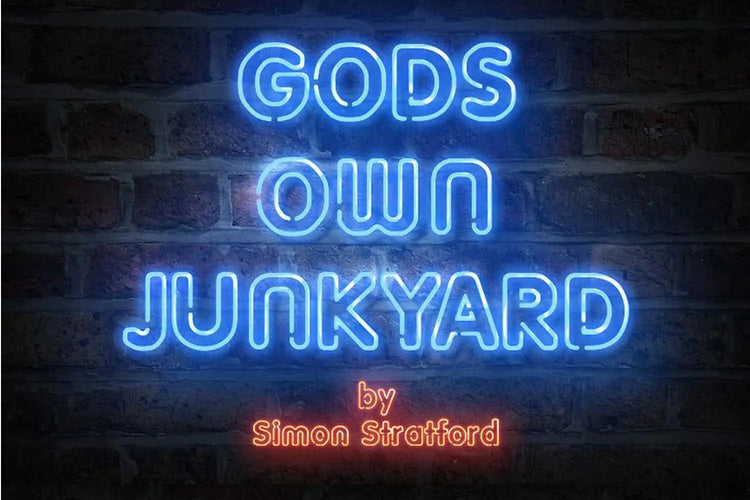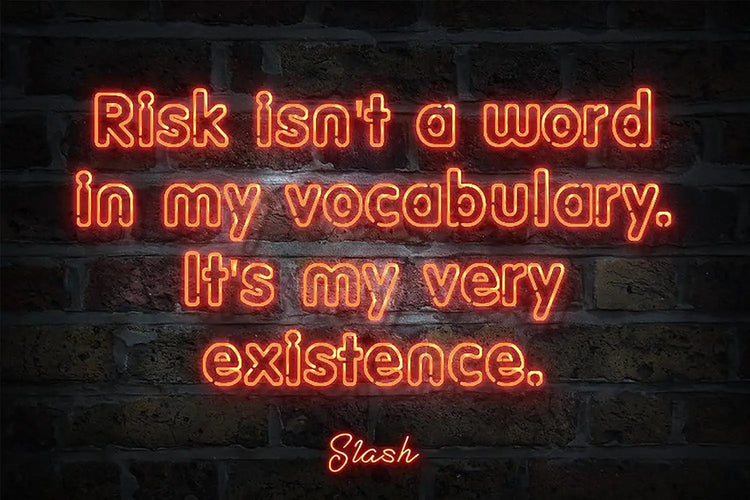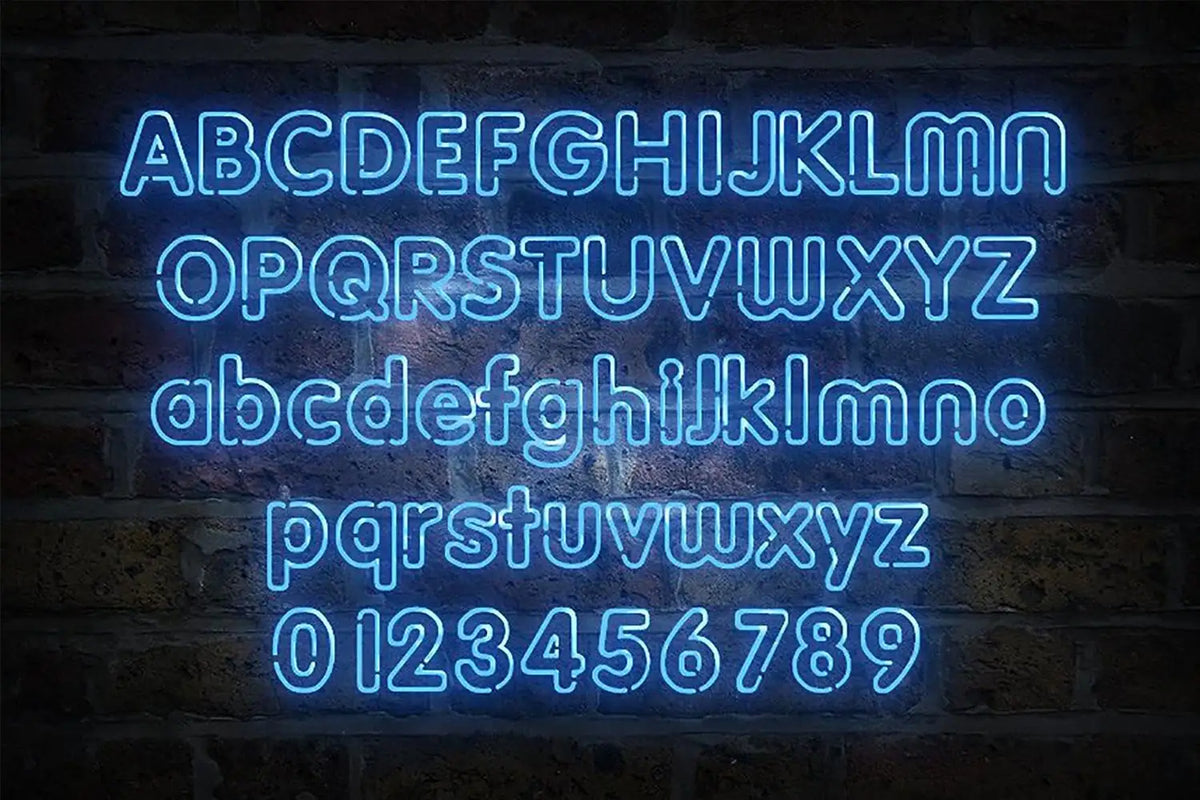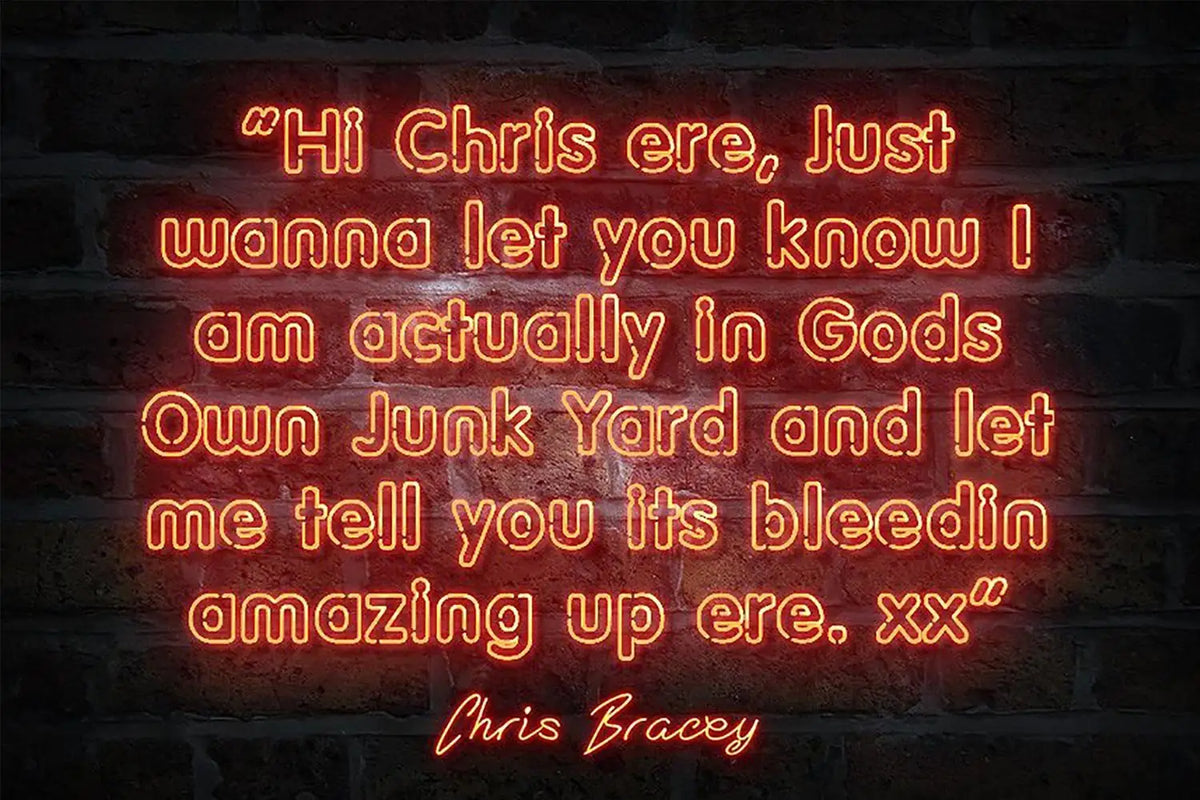
Gods Own Junkyard — Display Sans Serif Font
About Gods Own Junkyard
The inspiration for this font came from Chris “The Neon Man” Bracey, a British designer and artist known for owning one of the largest collections of neon signs and sculptures outside the United States.
Chris operated his own studio called Gods Own Junkyard in Walthamstow, north-east London. Sadly, he passed away on November 1, 2014, at the age of 59, from prostate cancer.
In the UK, numerous men receive a prostate cancer diagnosis, with some unfortunately receiving it at an advanced stage. My grandfather was among those diagnosed, and he bravely battled the disease for many years.
While I never knew Chris personally, I greatly admire his work and his fighting spirit.
Gods Own Junkyard is a neon-style typeface that pays homage to him. When combined with my Photoshop action, it can quickly create a realistic neon effect.
If Gods Own Junkyard Were a Celebrity
Just as Chris Hemsworth is known for his rugged good looks and down-to-earth charm, the God's Own Junkyard font would be recognized for its bold and eye-catching design, capable of grabbing attention and leaving a lasting impression.